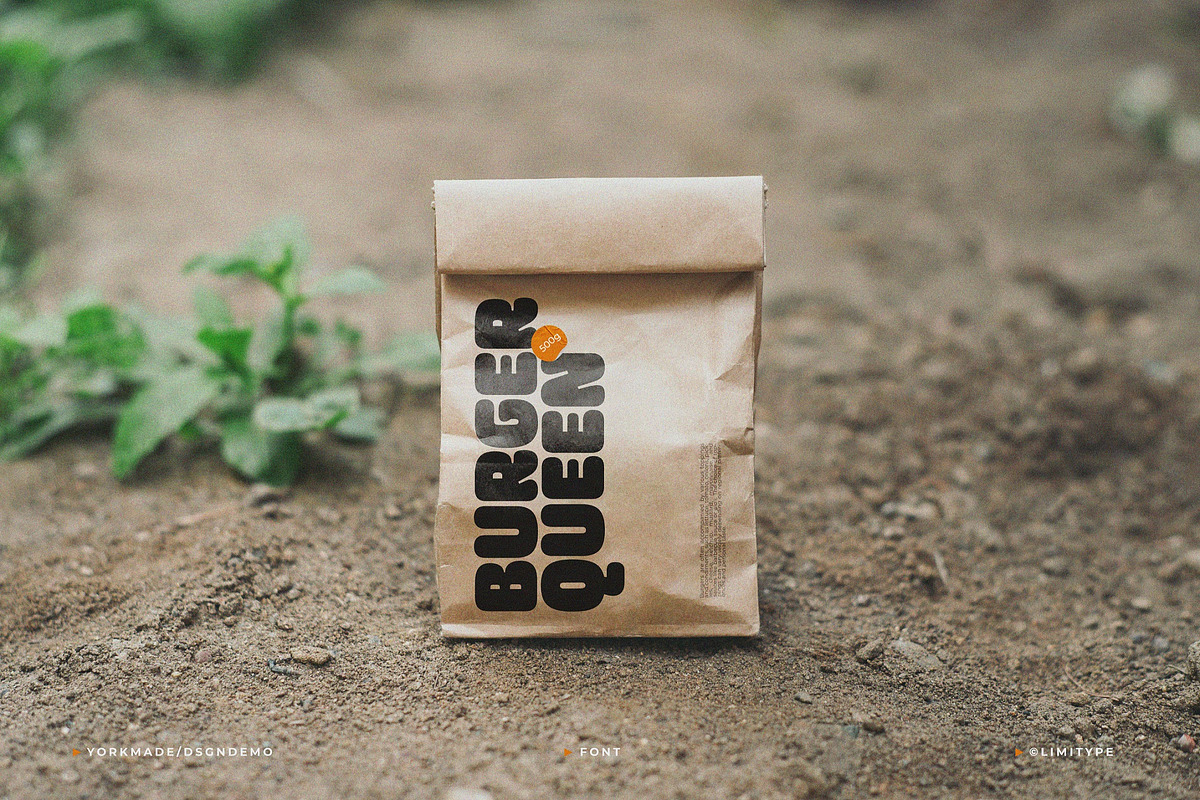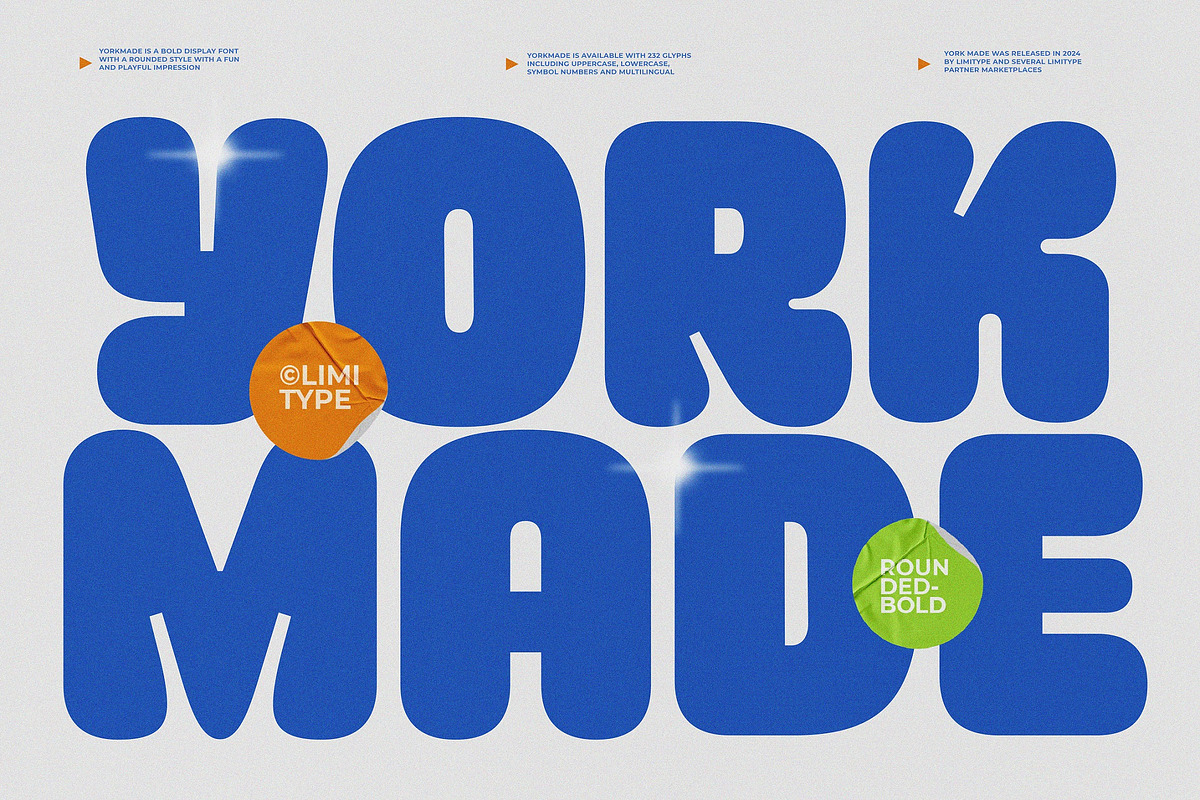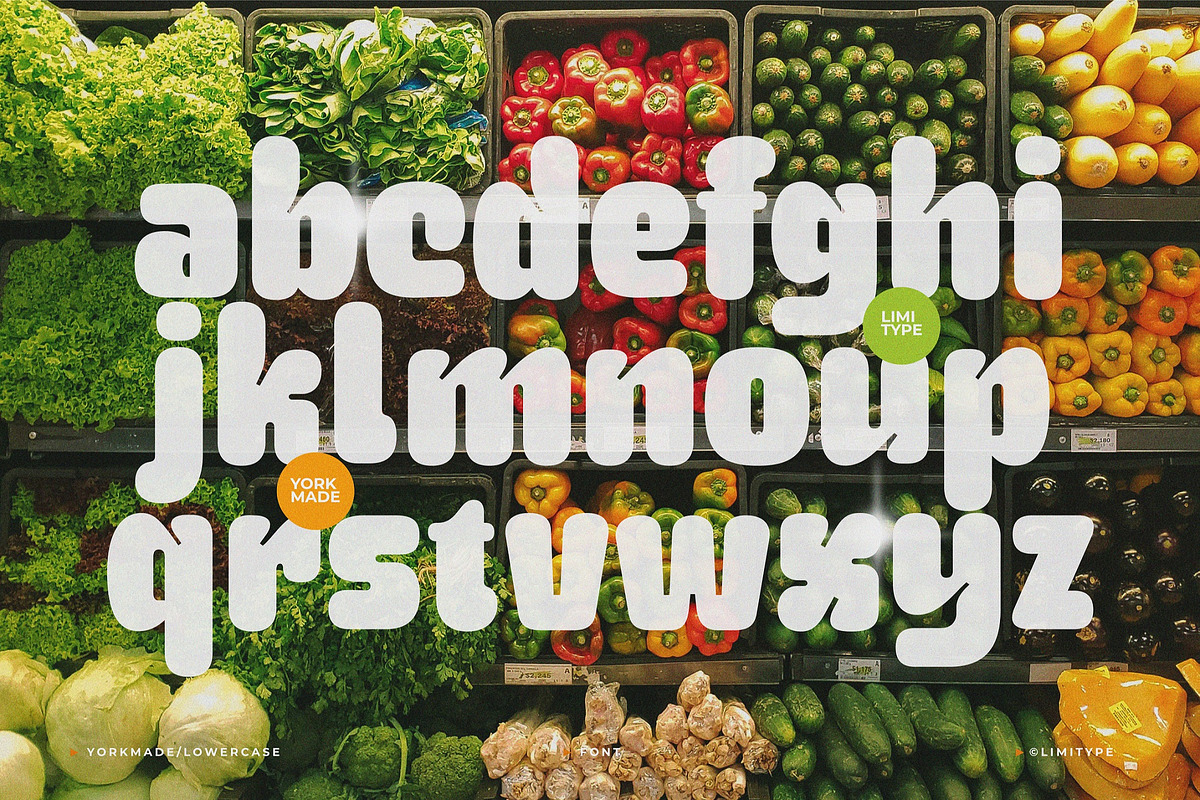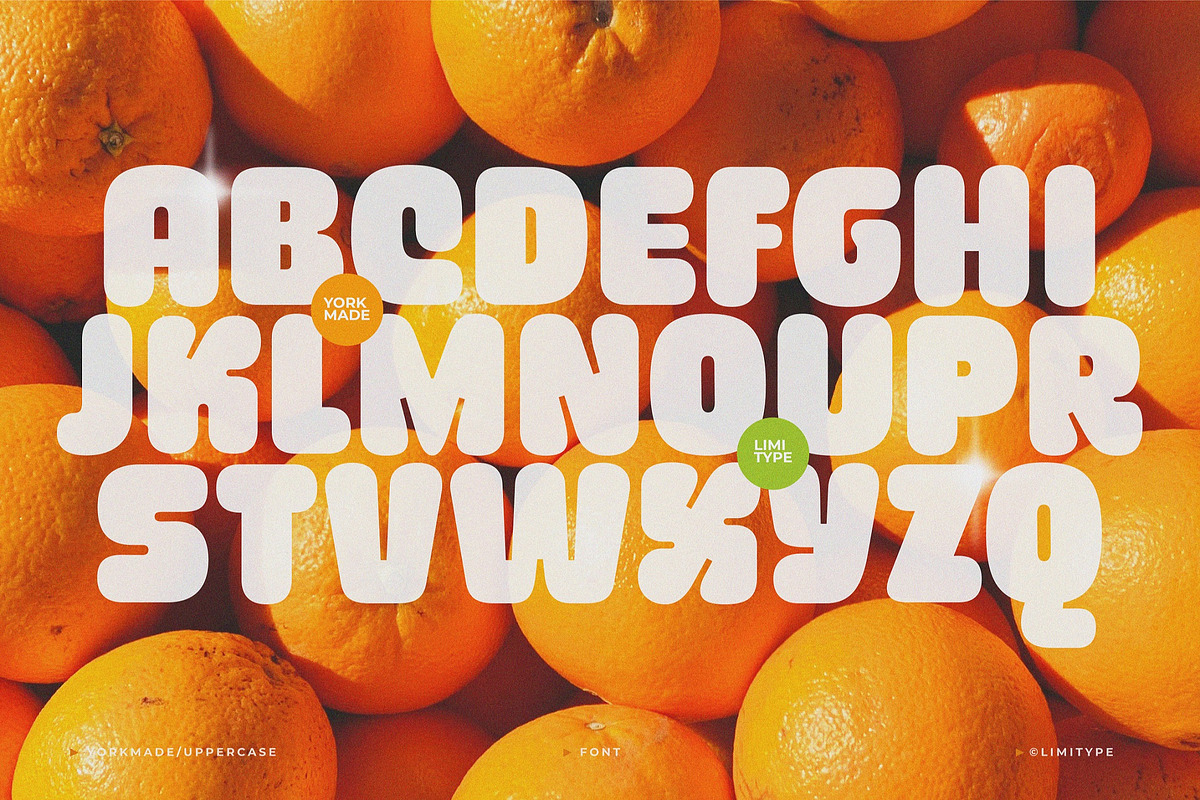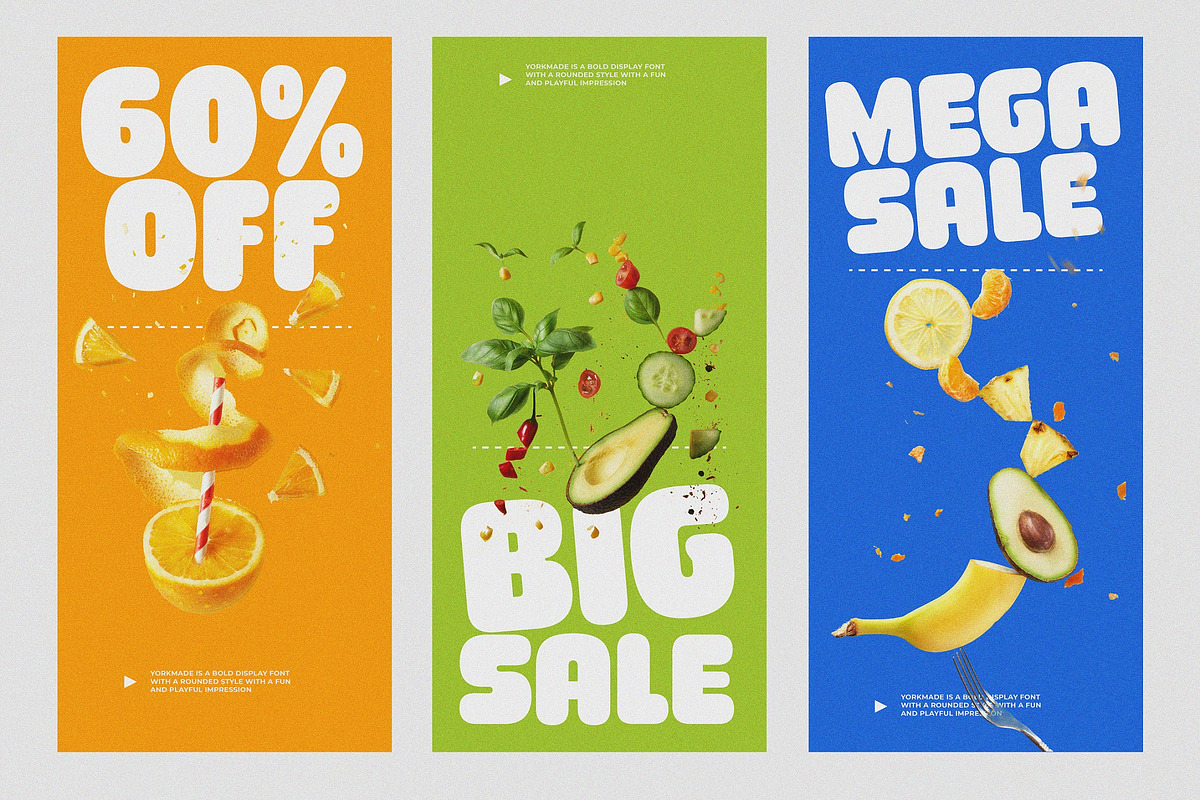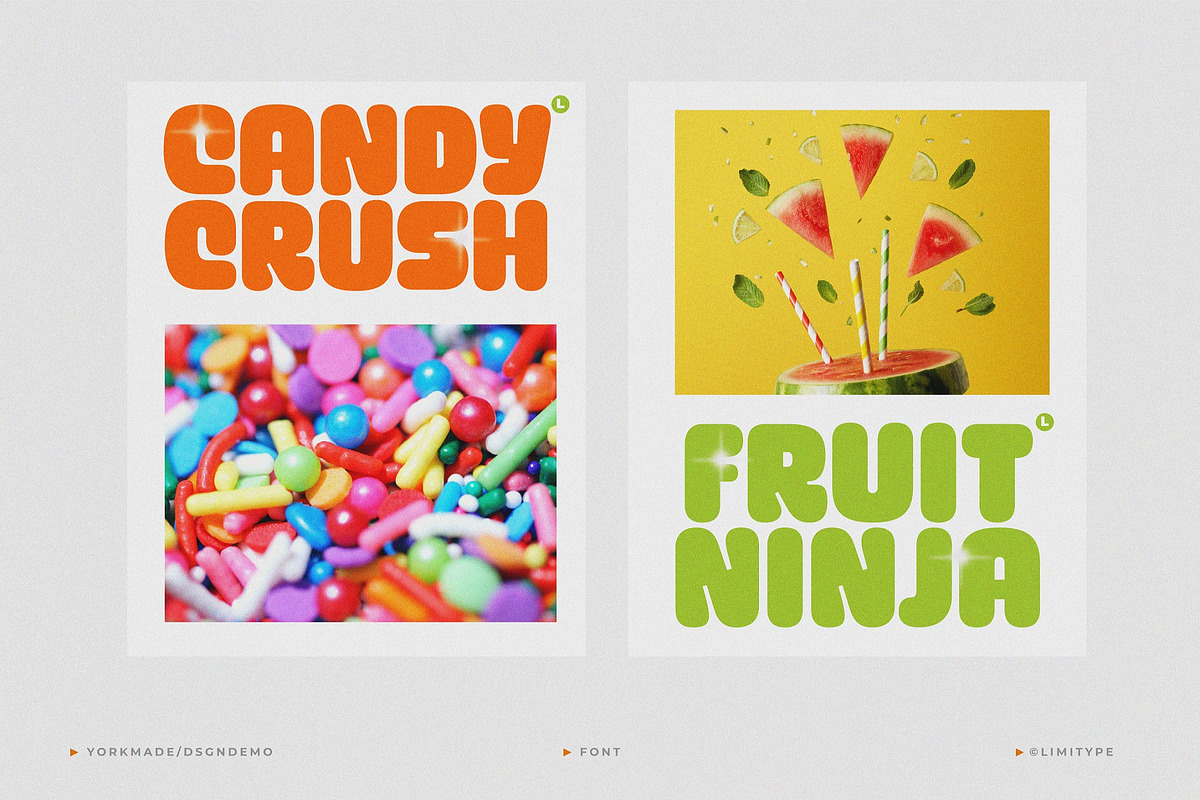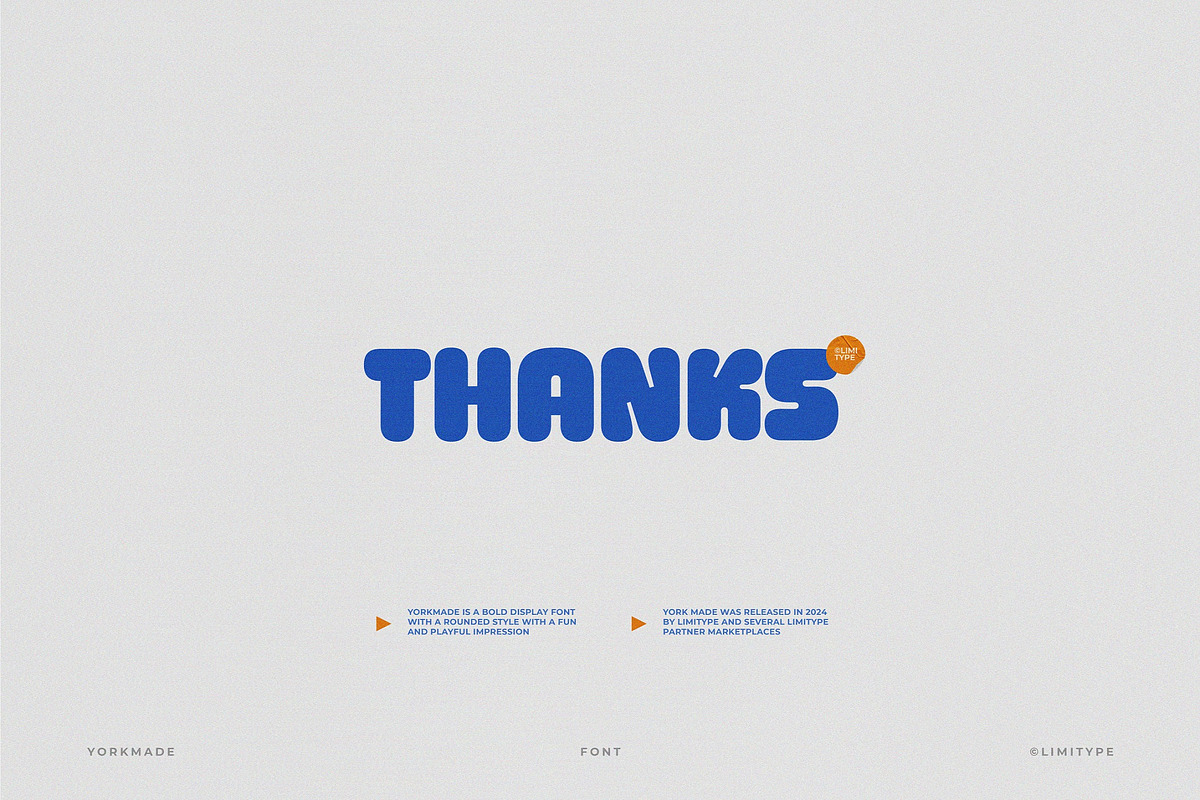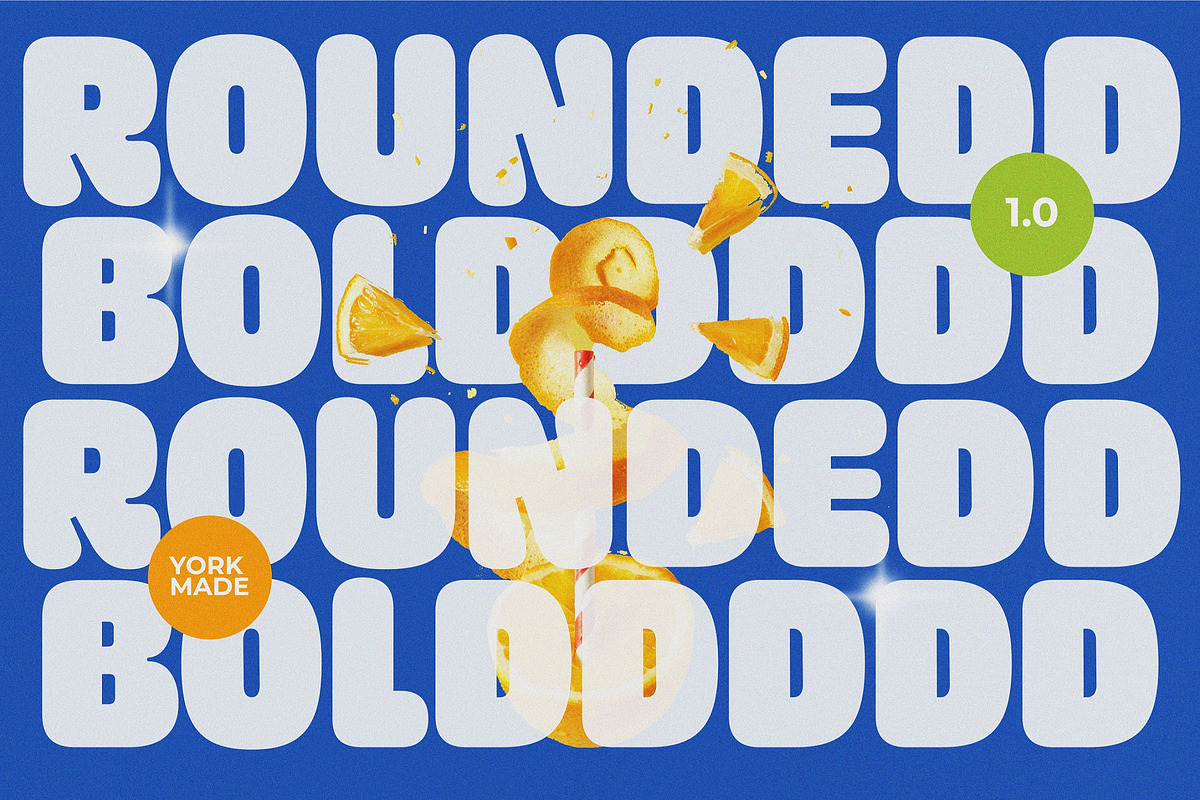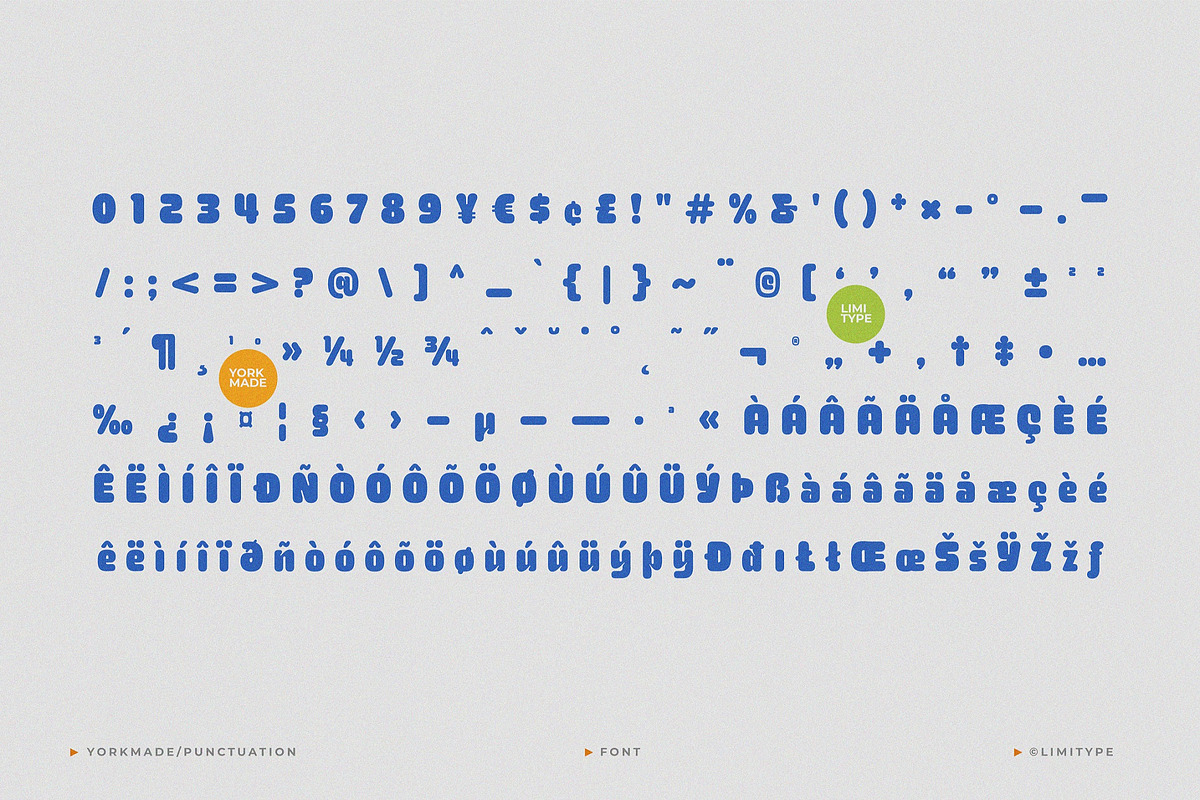
Yorkmade - Rounded Bold Font
Yorkmade is a bold display font made in a rounded style with a fun and playful impression, with inktrap in upper and lower case adding uniqueness to this font, Yorkmade is suitable for your designs that require a bold, chubby, fat and cheerful style. yorkmade version 1.0 is equipped with 232 glyphs including uppercase, lowercase, symbols, numbers, and multilingual.